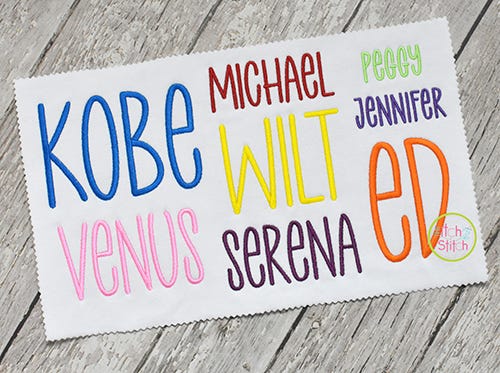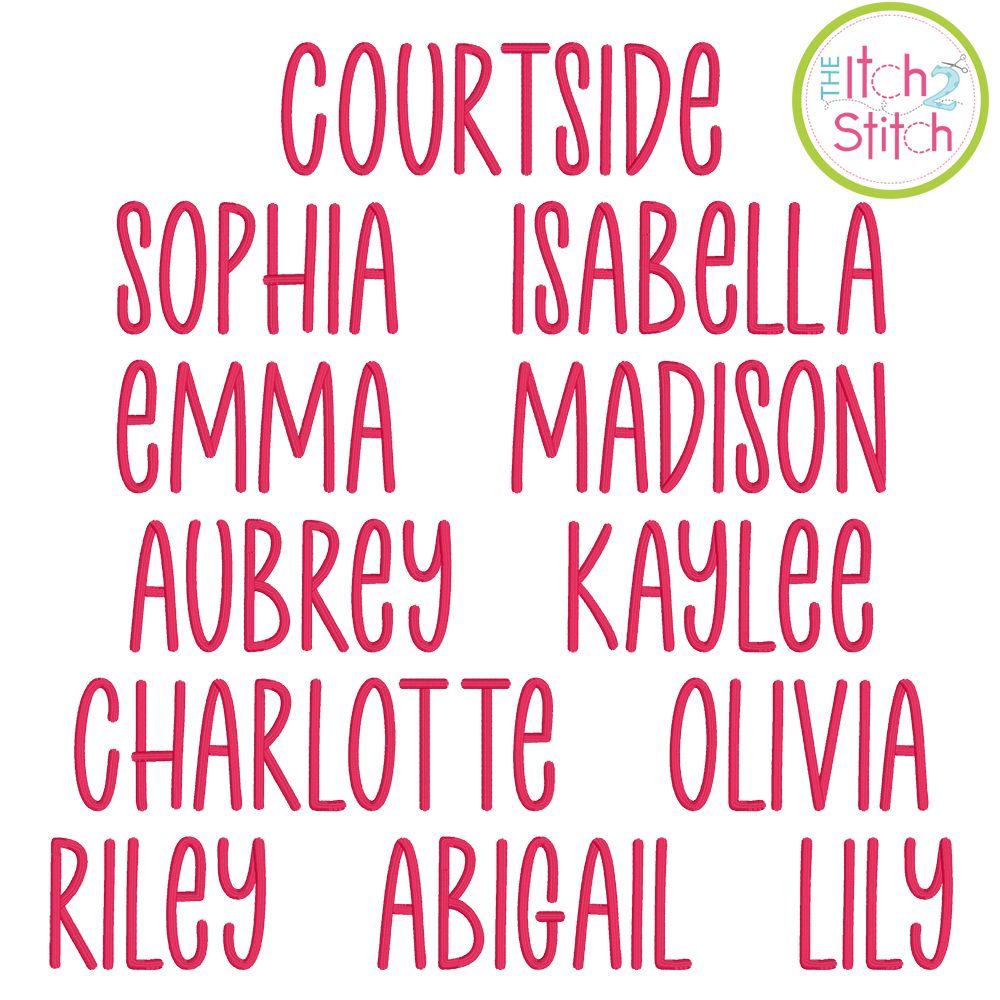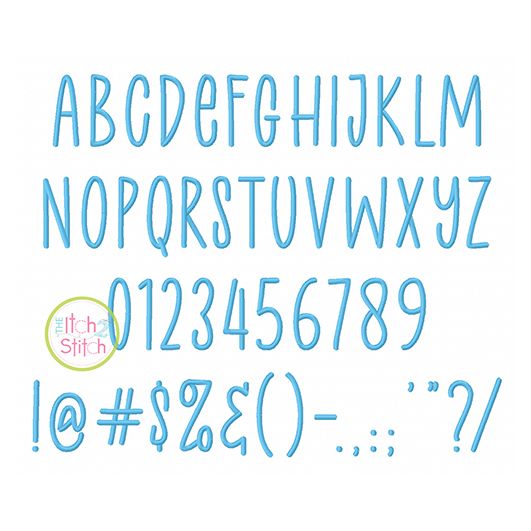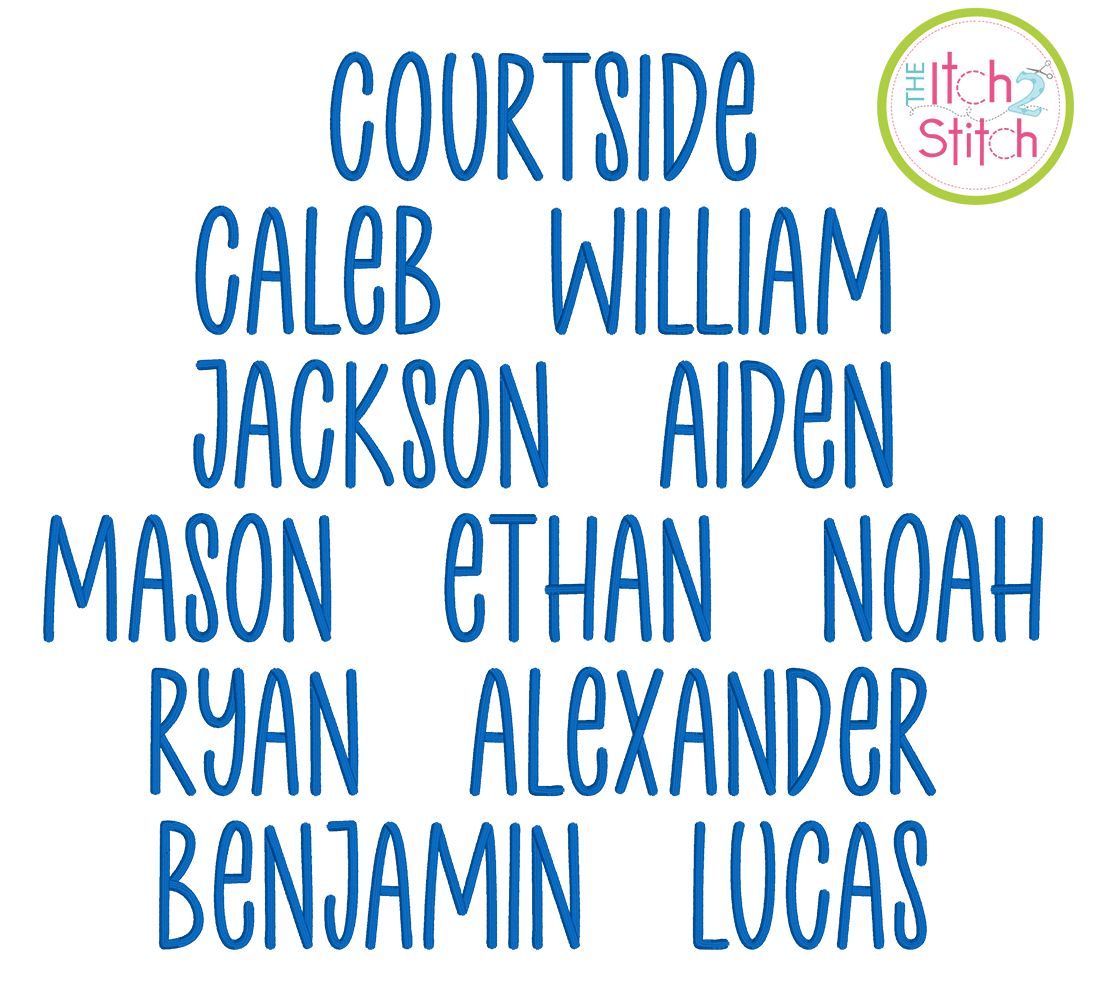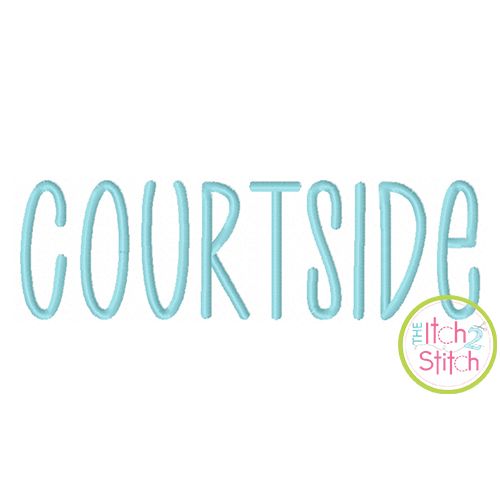
Courtside Satin Stitch Embroidery Font
You will receive all A-Z letters, numbers and partial punctuation (53 files) in seven sizes. Please note this is a "unicase" font. There is only one design file for each letter of the alphabet. It is a mix of traditional capital and lowercase letters, as pictured. The 4" size does not fit in a 4x4 hoop.